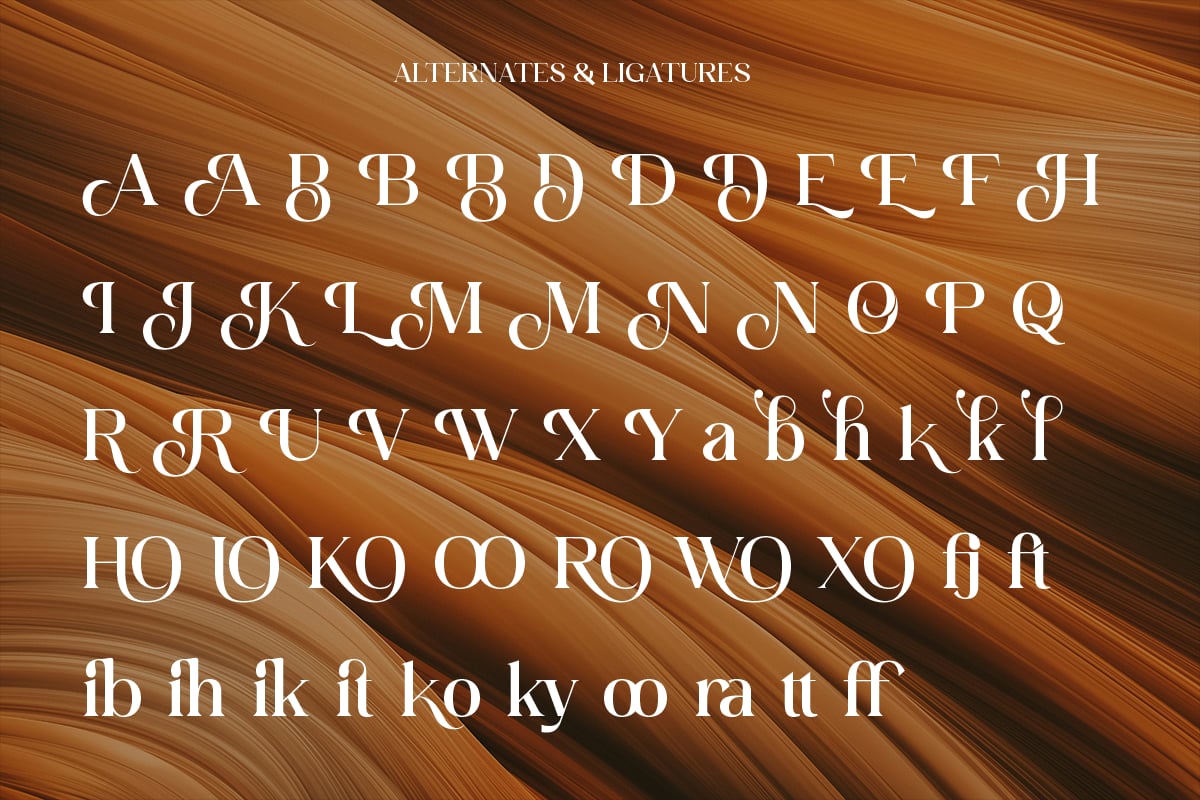
Rintik – Modern Elegant Stylistic Logo Serif Font
Rintik is a high contrast serif by Shakira Studio, with round ball terminals and a little sparkle mark that sits in place of the dot on the i in the specimen. The regular letters are calm and readable. The alternates are not: there are curled versions of almost every capital and a long row of ligatures such as fi, ky and tt.
The family includes Regular and Italic, and the multilingual sheet shows a good spread of accented capitals. Use the plain letters for most of a word and add one or two swashes where you want some movement.
Best uses for Rintik
• Photography studio logos
• Beauty and skincare packaging
• Editorial titles and lookbooks
• Wedding invitations
• Social media quote cards
Rintik pairs well with light sans fonts. Raleway in Light or Regular has a similar delicacy. Nunito Sans is easy for body text. For a serif partner in paragraphs, Crimson Pro stays readable at small sizes.
What free font is similar to Rintik?
Gilda Display and Cormorant on Google Fonts are free, open licence serifs with a similar soft elegance, though without Rintik’s swashes.